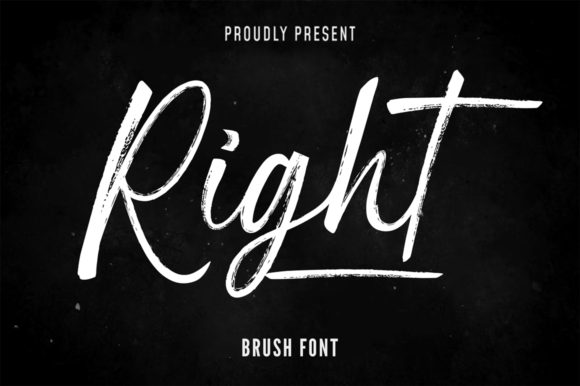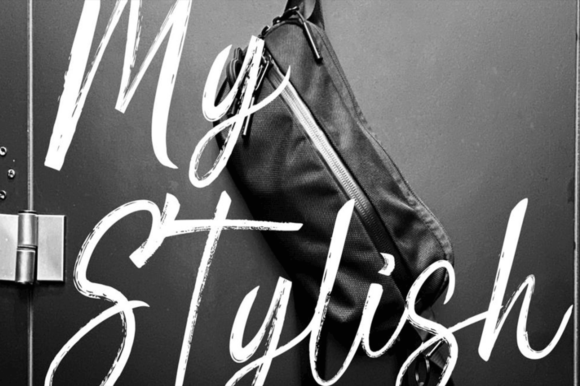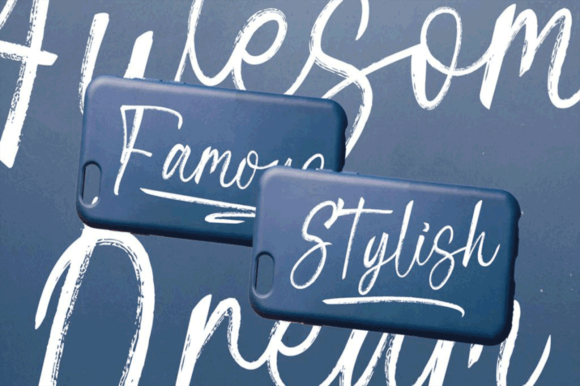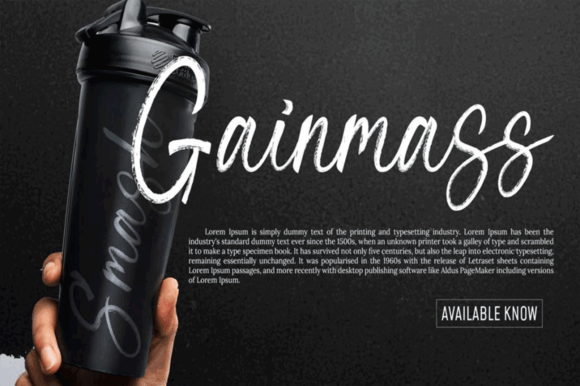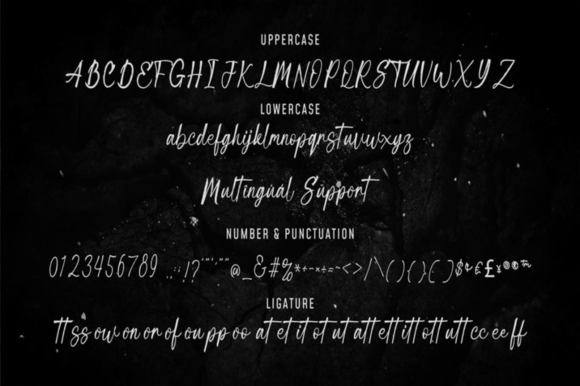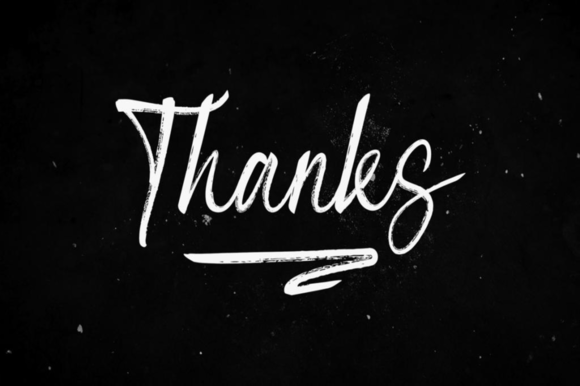
About Right Font
Right Font Download introduces a timeless and artistic handwritten brush typeface that captures elegance with every stroke. Whether you’re designing a brand logo, crafting a personal quote, or building a creative identity, this font provides the perfect blend of personality and polish.
Right Font is not just a brush font—it’s a carefully designed tool to help your words come alive. Its fluid curves, unique letterforms, and natural flow make it a favorite for both casual and professional projects alike.
A Handwritten Brush Style That Inspires
What makes Right Font truly special is the expressive and handcrafted appearance of each letter. Designed to mimic authentic brush strokes, the font has just enough texture and character to add a human touch to your designs. It’s ideal for:
Custom logos with artistic flair
Elegant branding and packaging
Inspiring social media quotes
Handmade product labels and tags
Event invitations, posters, and stationery
Its charm lies in its simplicity, yet it carries a bold, confident presence that makes your message stand out in any format.
The font includes a full set of uppercase and lowercase characters, punctuation, numerals, and multilingual support. Whether you’re creating a digital banner or a printed invitation, you’ll have all the elements needed to craft a cohesive design.
Adds Elegance to Any Project
Right Font adapts beautifully to both modern and traditional aesthetics. You can use it as a headline font for bold visual impact, or pair it with clean sans-serifs for a balanced and sophisticated layout.
Its brush-lettered texture also gives it a hand-painted feel, perfect for organic brands, wedding vendors, artists, and makers looking for something genuine and artistic. Even simple quotes become visually engaging with this unique script.